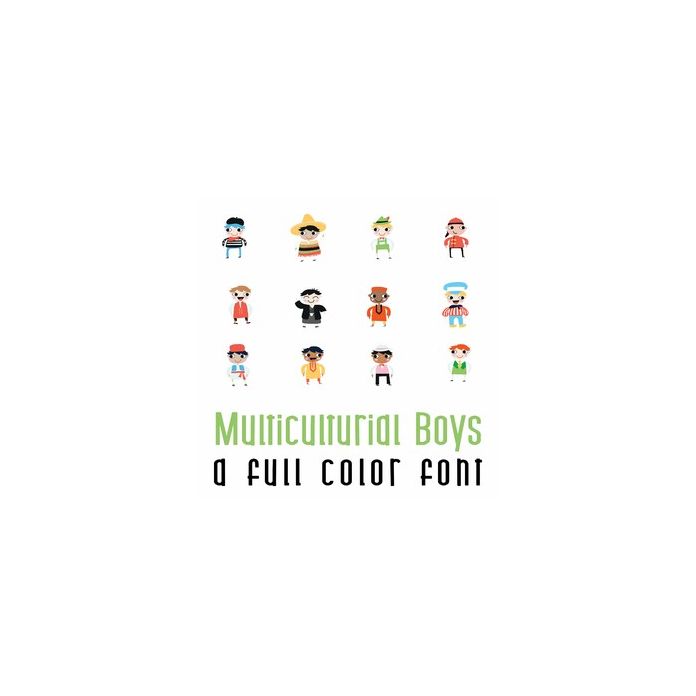
This adorable full-color doodlebat font features 26 multicultural boys. Perfect for cards, crafts, gifts, decor, scrapbook pages, planner stickers, and more!